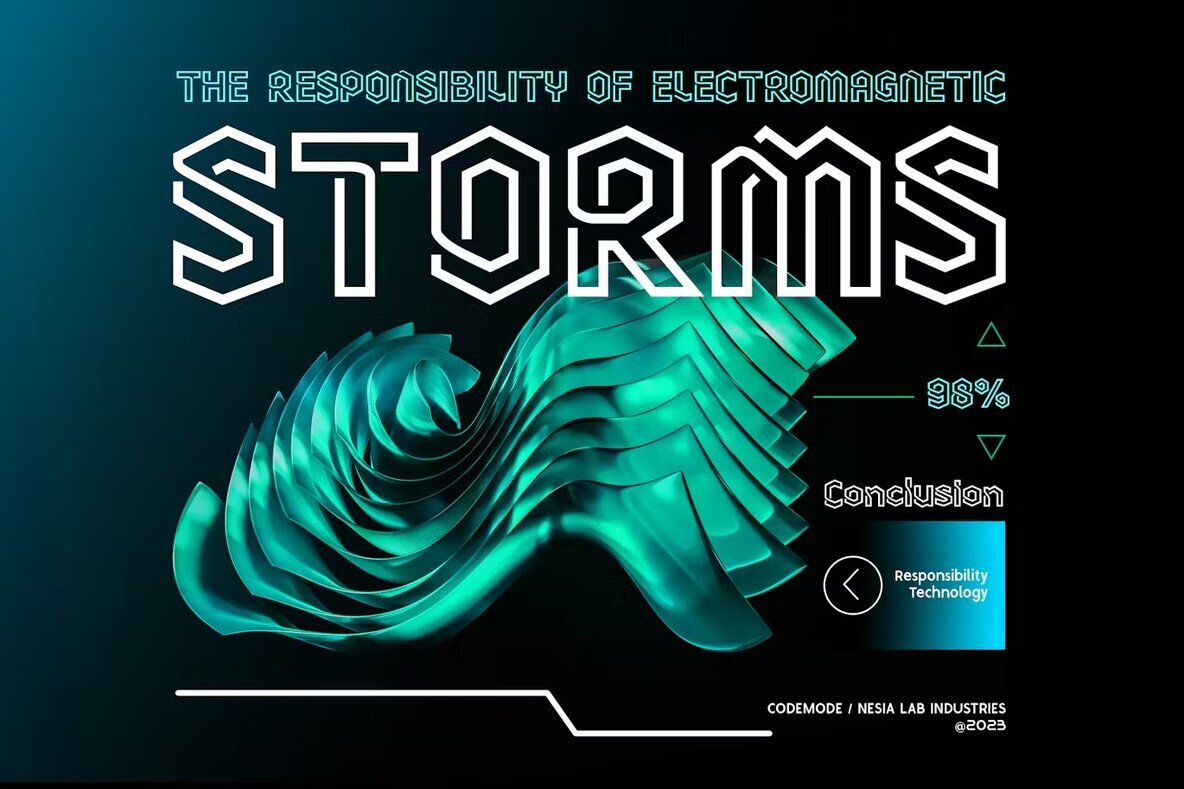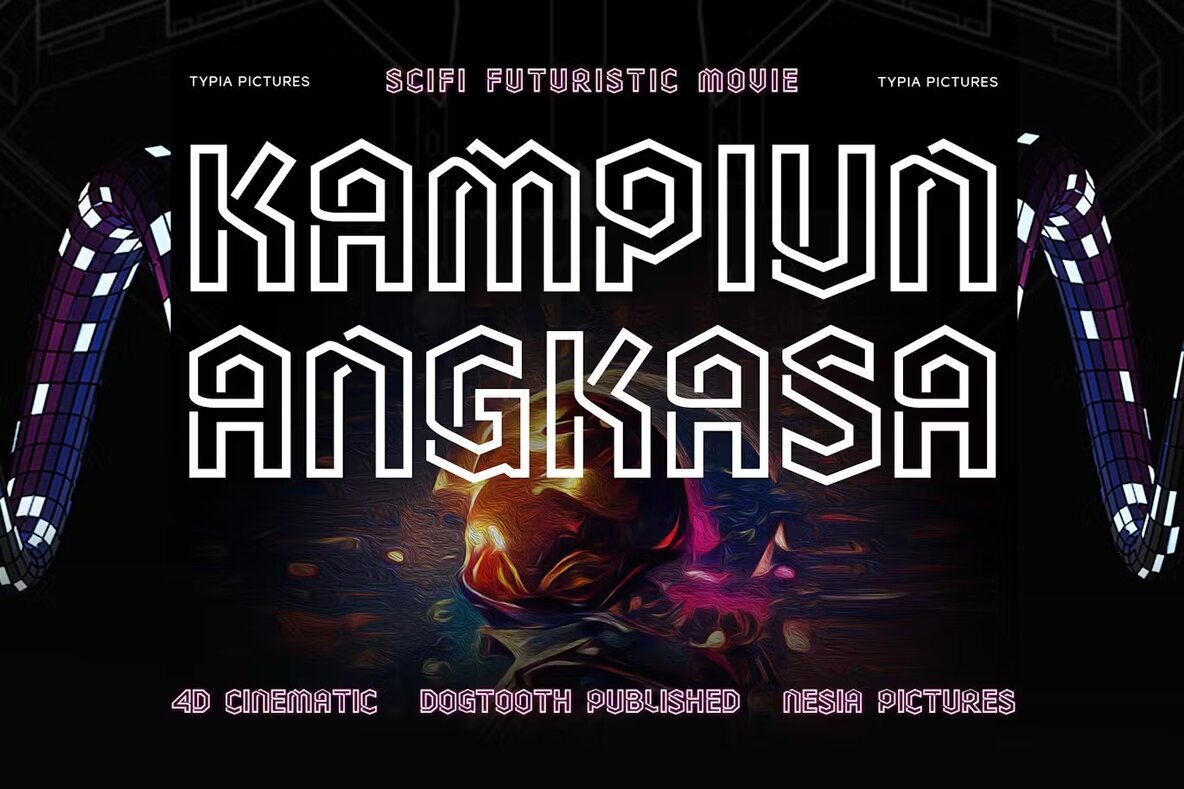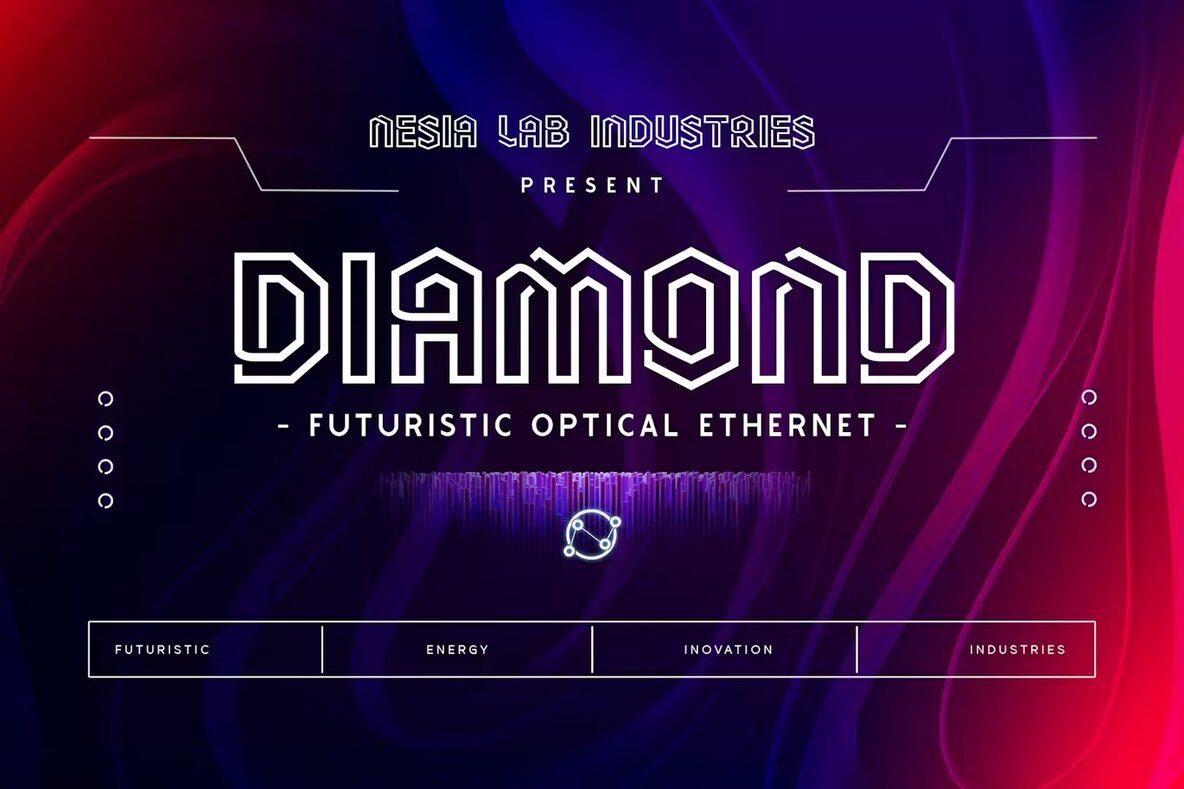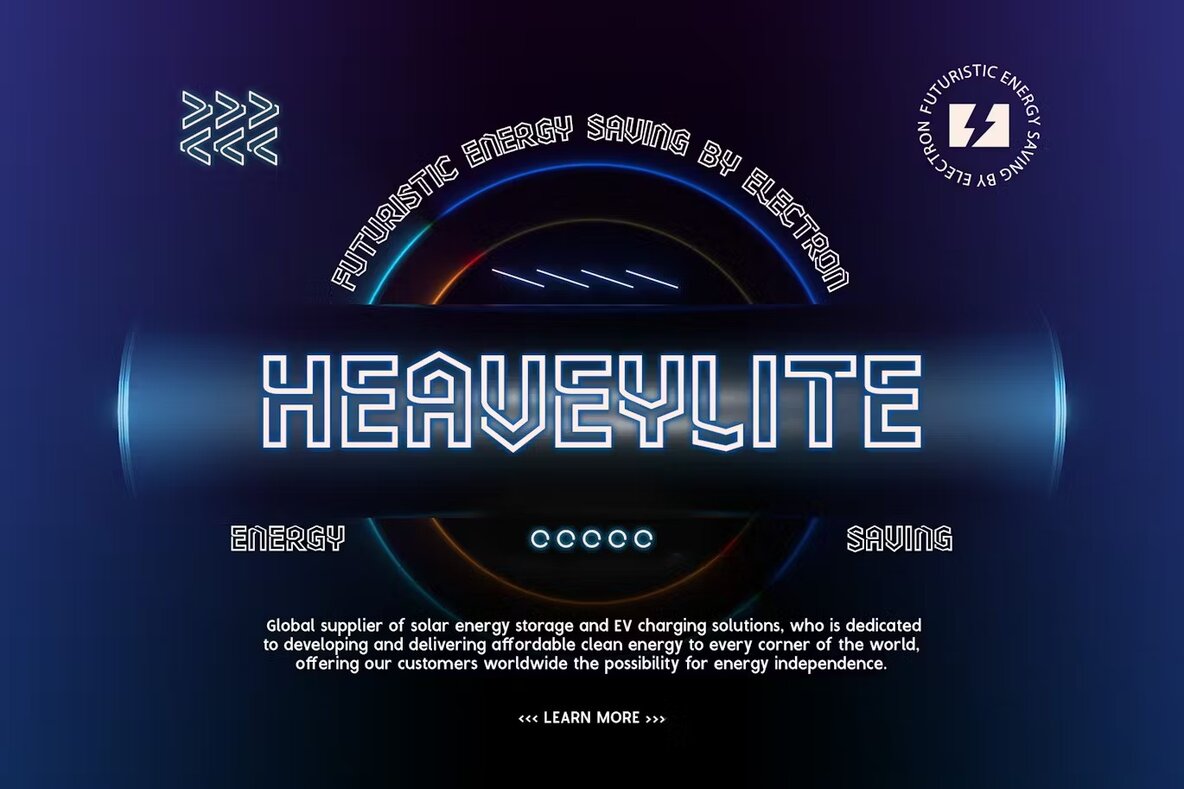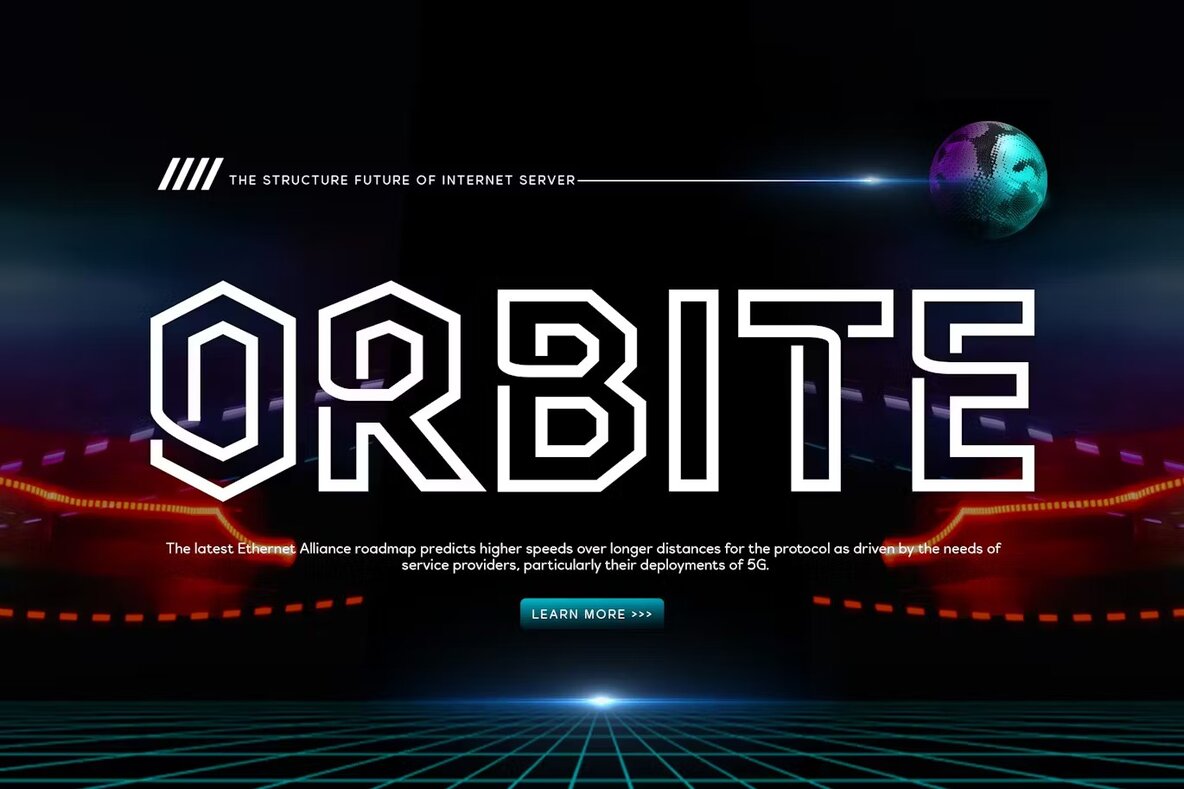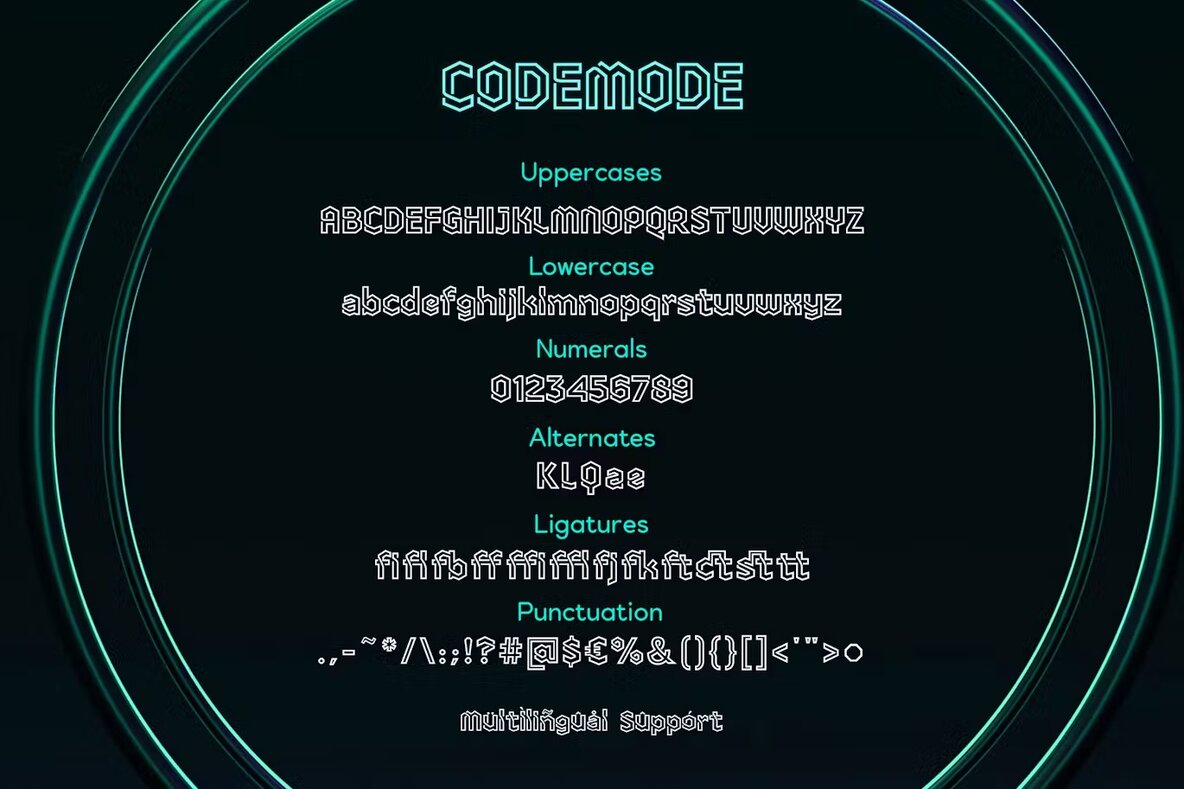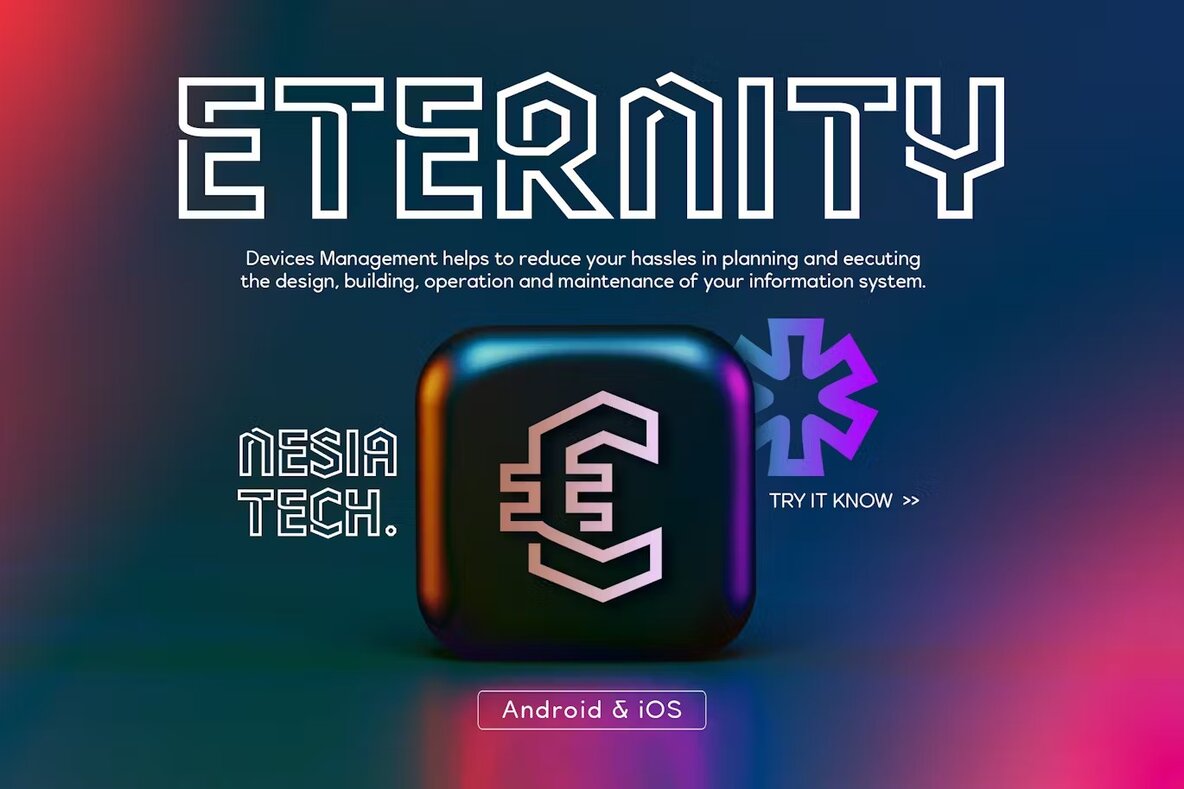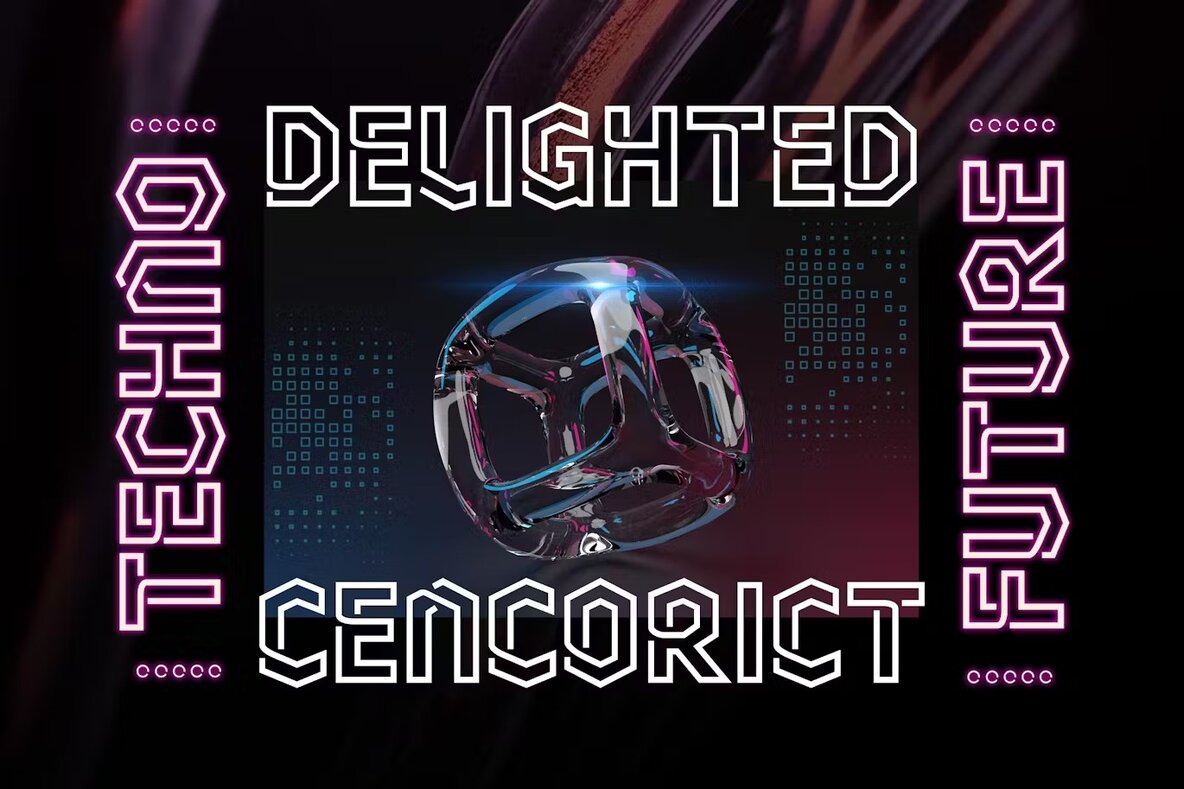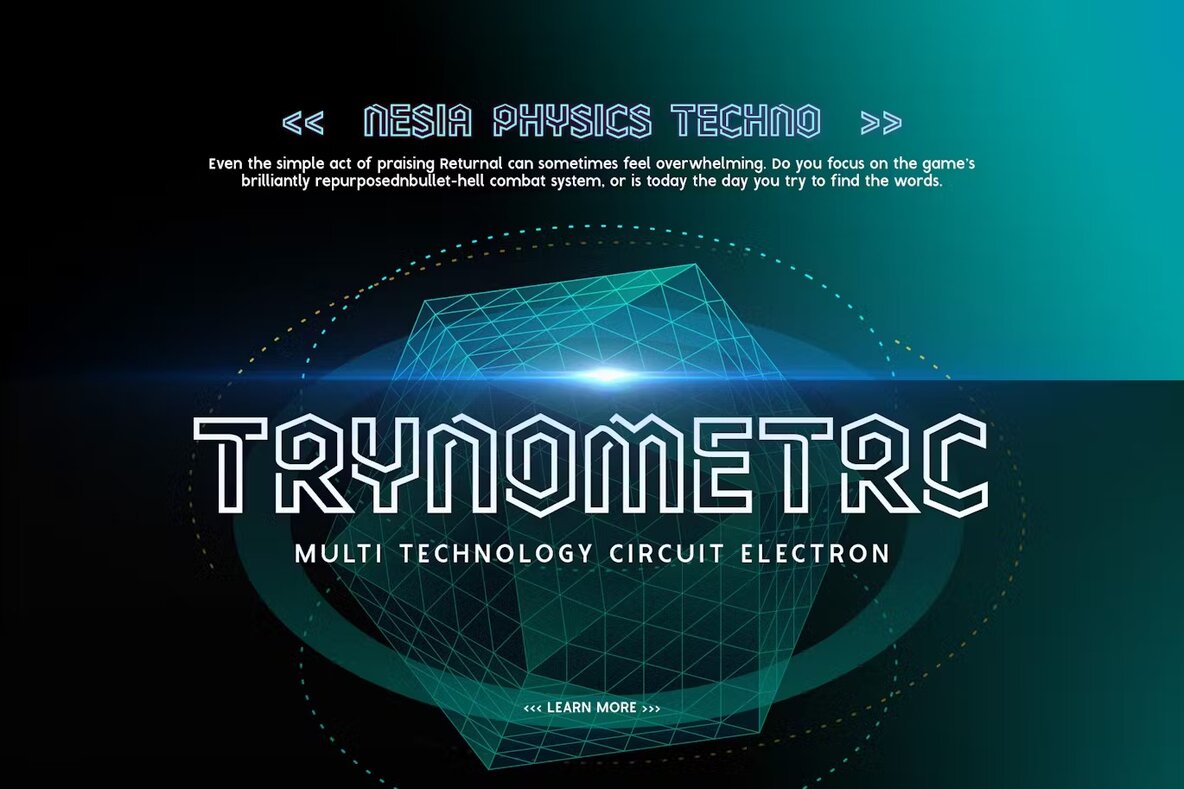
Codemode Font
Codemode Regular
Codemode is a hexagonal neon sans font that infuses a futuristic, eye-catching vibe into your designs. Ideal for cafes, front stores, signage, and posters, this display font ensures your projects demand attention. With clean lines, sharp edges, and a geometric structure, Codemode exudes a modern and edgy appeal that is perfect for any design seeking a standout aesthetic.
Its neon-like appearance adds a touch of futuristic aesthetics, making it well-suited for contemporary designs. Codemode captures the essence of modernity with its unique hexagonal style, creating visually striking displays that resonate with a forward-looking vision.